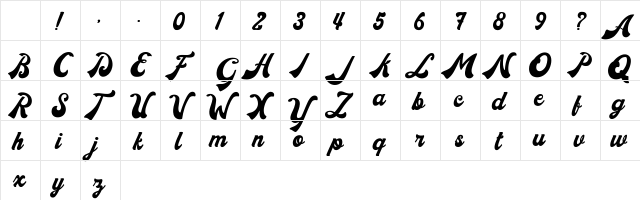
Complete Donatello Regular glyph index. Displaying only characters natively supported by Donatello Regular font.
Donatello is a composed and adaptable typeface that performs quietly and consistently across a wide range of design contexts.